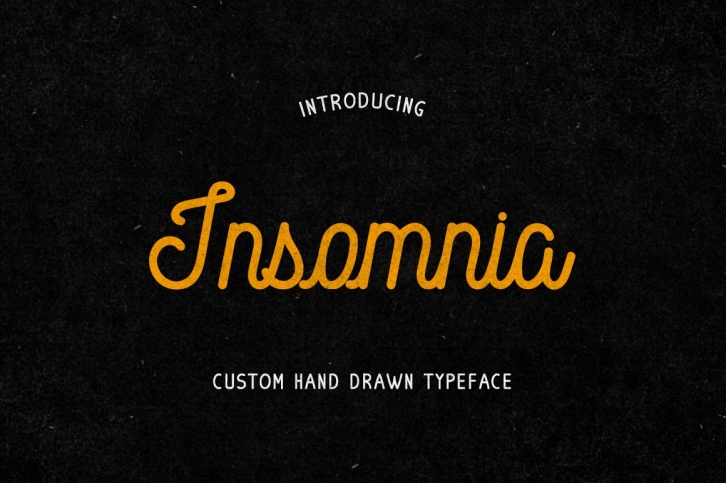
Insomnia is a trendy and unique font with an authentic style. It was designed by Jokiranta and it's a great choice for creative people who need such a font. It was released on May 20, 2016 and the file size is 6.94 MB. Insomnia will add an organic vibe to any design idea!